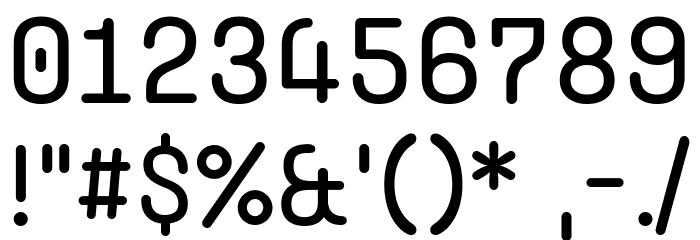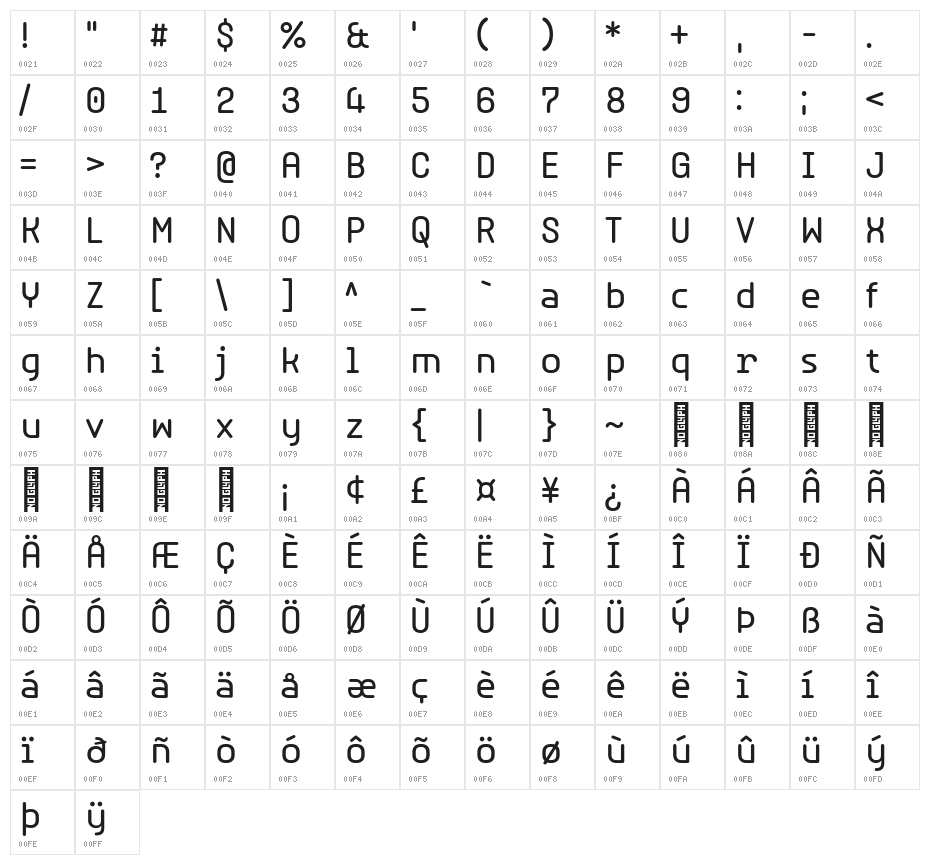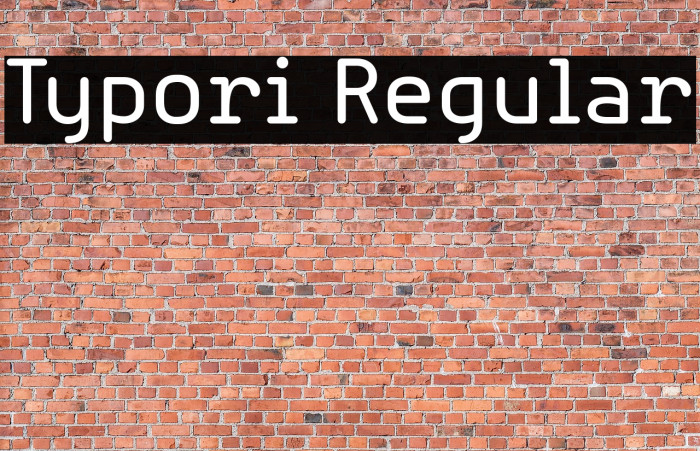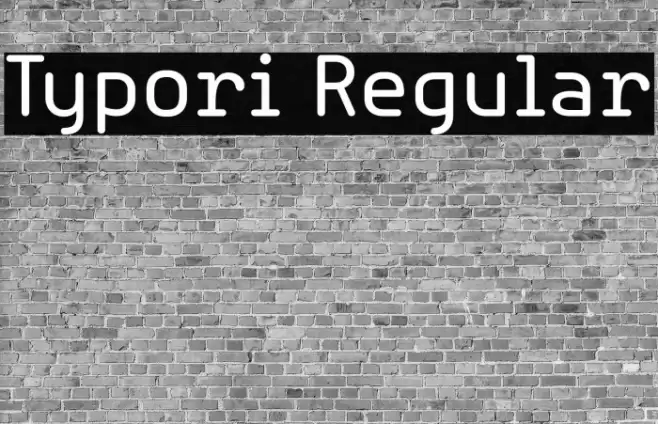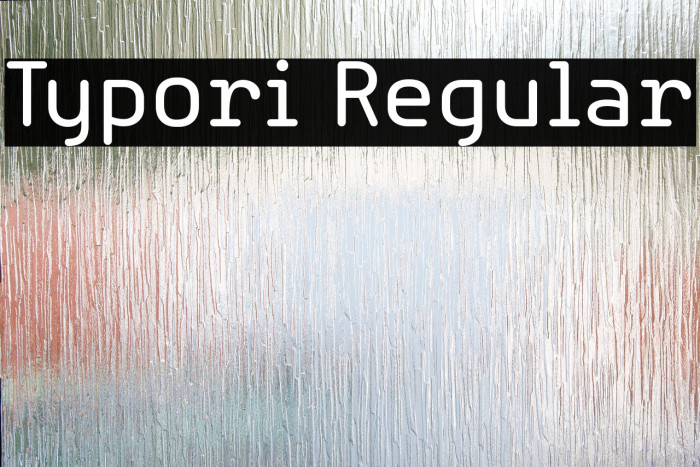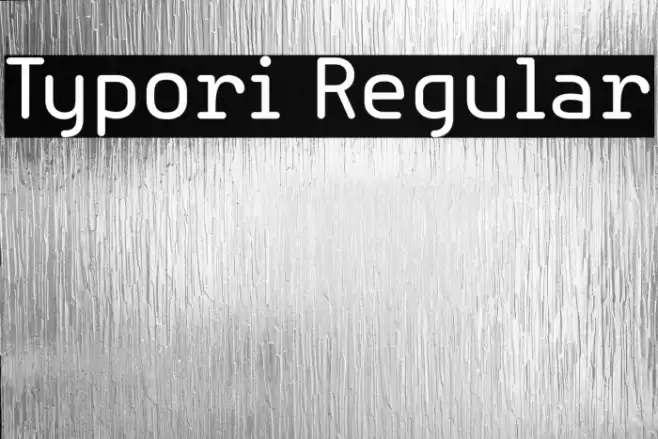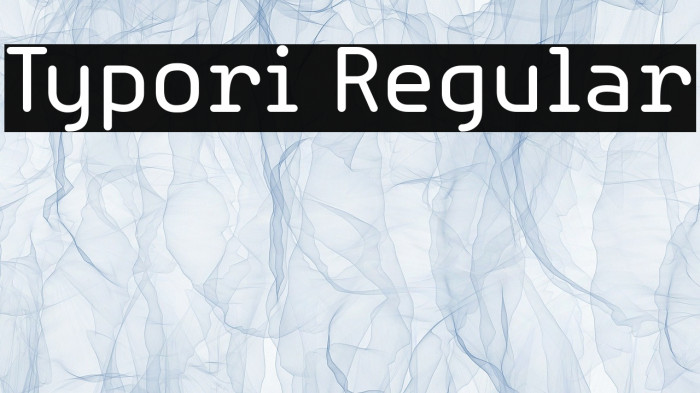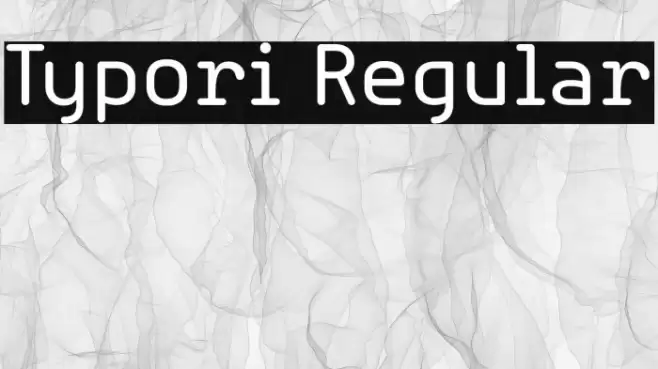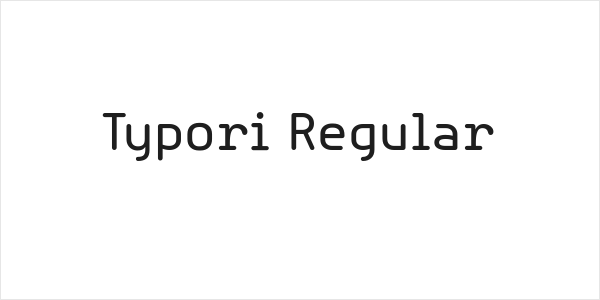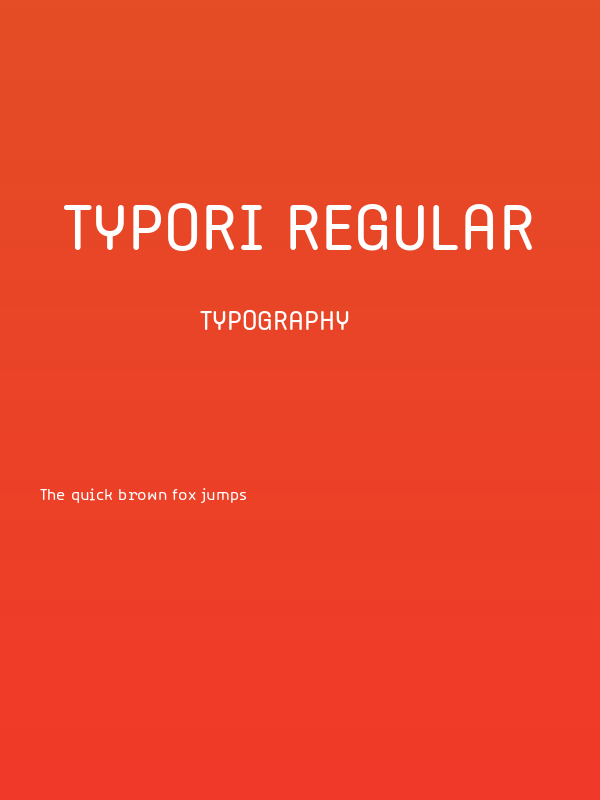
Typori Regular Font
Typori Regular Description
This font exhibits a clean and modern sans-serif style with rounded edges, giving it a friendly and approachable appearance. The characters are evenly spaced, contributing to its readability. The uppercase letters are uniform in height, while the lowercase letters maintain a consistent baseline, enhancing the font's balance. The numerals are clear and distinct, making them suitable for both digital and print applications. Special characters are well-defined, ensuring versatility across various contexts. Its simplicity and clarity make it ideal for a wide range of uses, from digital interfaces to printed materials.
| Proposed Projects | Ideal for user interfaces, branding, signage, and educational materials. |